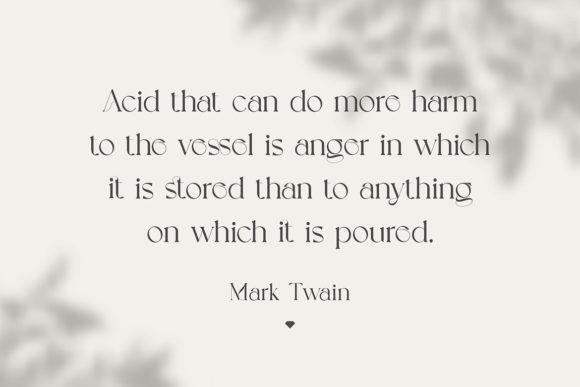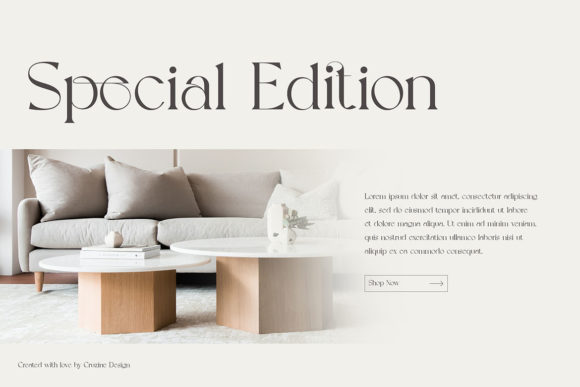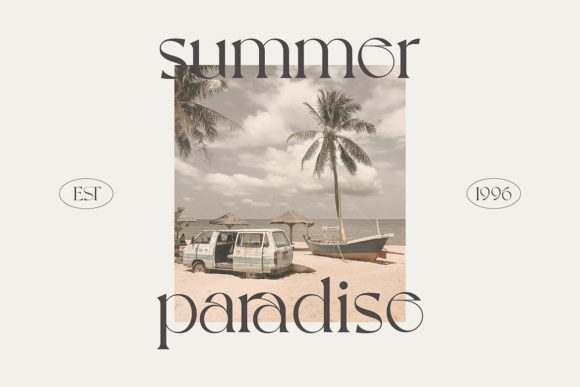
Introduction to Grapevine Font
Grapevine is a trendy and stylish serif font designed for your fancy projects.
📌 Product Name Grapevine Font
👤 Author JumboDesign
It is perfect for any branding project such as logos, t-shirt printing, creative products, or pretty much anything that could benefit from a distinct vibe This font is PUA encoded which means you can access all of the glyphs and swashes with ease.
Key Features of Grapevine Font
Why Choose Grapevine Font?
Grapevine Font offers exceptional quality and versatility, making it a valuable addition to your design toolkit. Whether you’re creating for personal projects or commercial use, Grapevine Font delivers professional results.